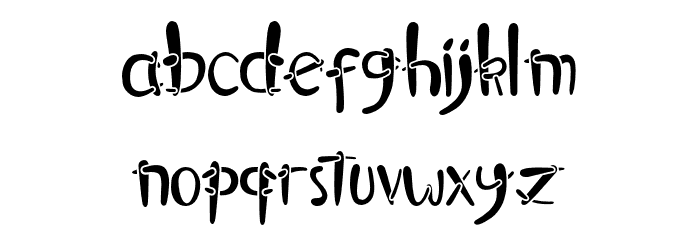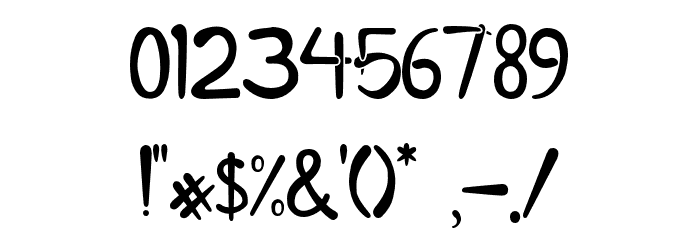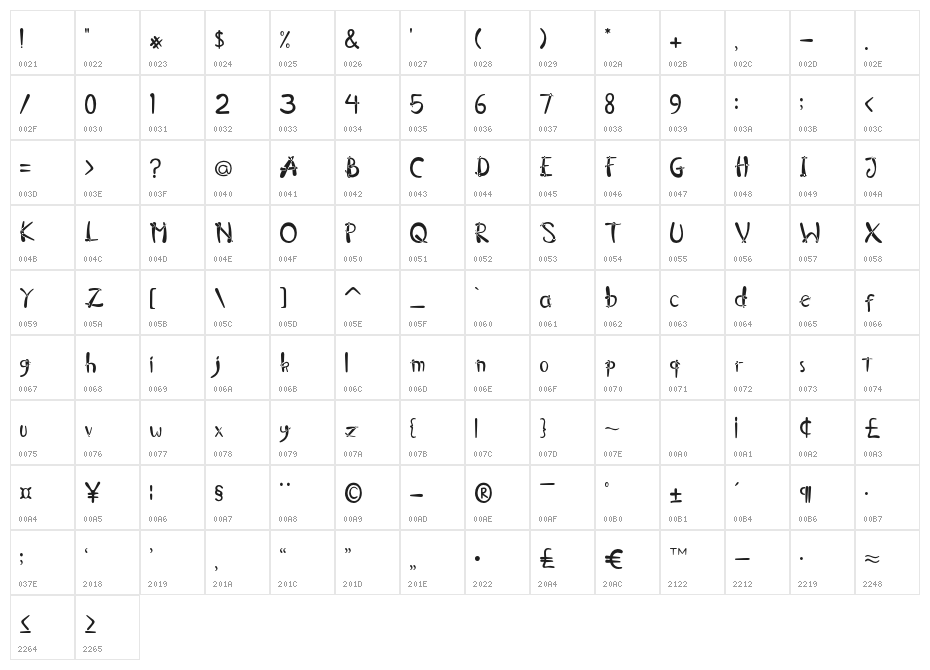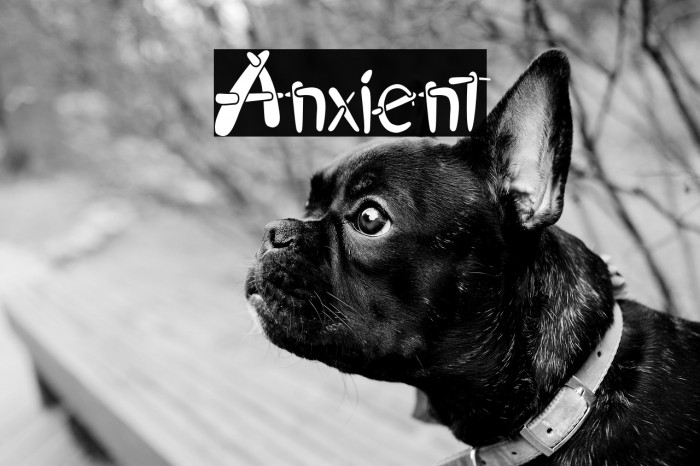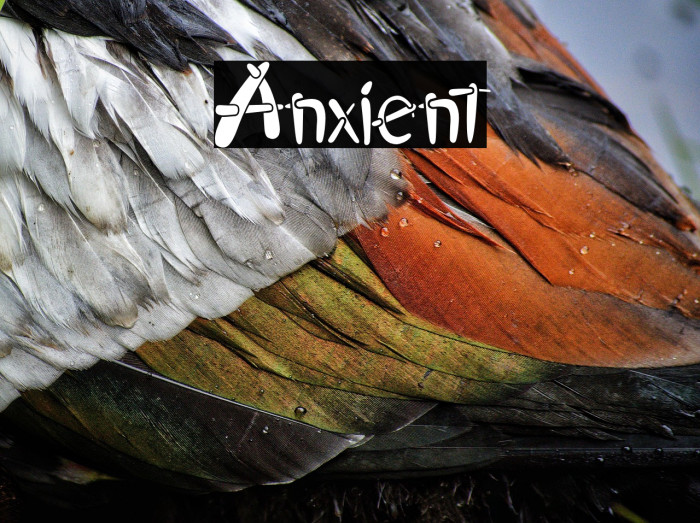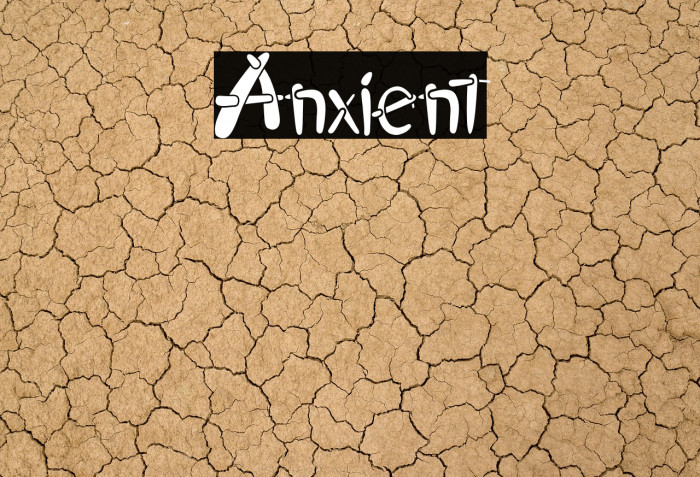
Anxient Font
This font features a unique and playful design with a whimsical touch. Each character is crafted with a combination of thick and thin strokes, creating a sense of movement and fluidity. The letters are adorned with small circular embellishments, adding a decorative element that enhances its playful nature. The overall appearance is both modern and artistic, making it suitable for creative projects. The font maintains a consistent style across uppercase, lowercase, numbers, and special characters, ensuring versatility in its application.
A whimsical and decorative font with playful circular embellishments.
- Proposed Projects: Ideal for children's books, playful branding, creative posters, and artistic invitations.
- Use Case: Headlines, Logos, Creative projects